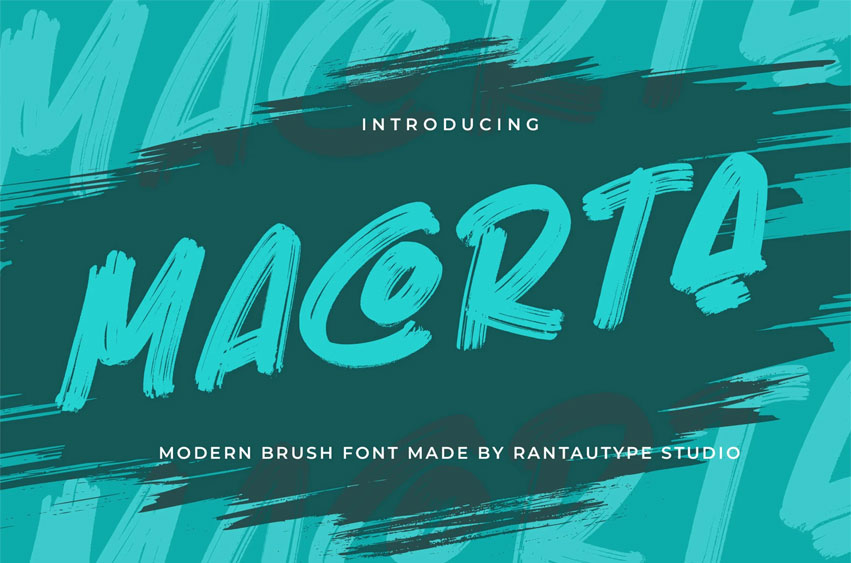
Macorta Font is a modern brush font with a bold and stylish texture. Macorta is a perfect choice for any creative endeavor, creating, modern, chic, lifestyle designs such as logotypes, titles, covers, branding, invitations, wedding designs, displays and magazines, social media posts, advertisements, printed quotes, product packaging, corporate brand, product designs, labels, photography, watermarks, special events and any other project with handwritten touch.